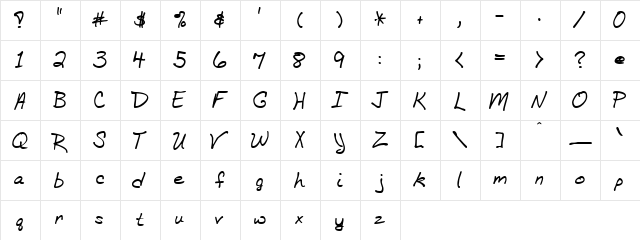
PVC Regular
Design Context for PVC Typeface
PVC takes a measured approach to typography — its balanced proportions and neutral character make it a reliable workhorse for both digital and print work.